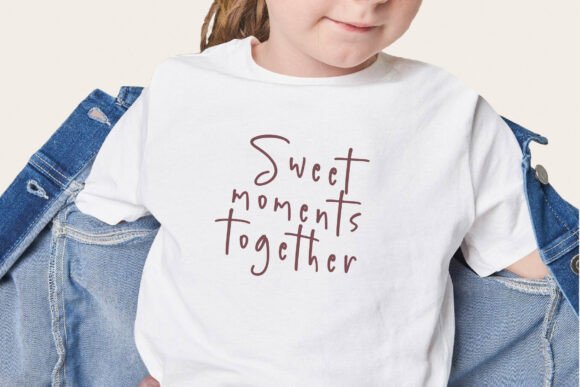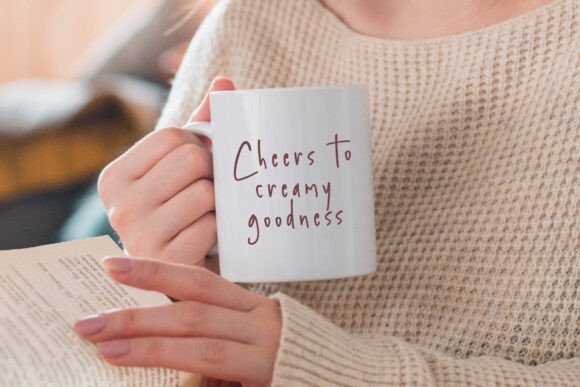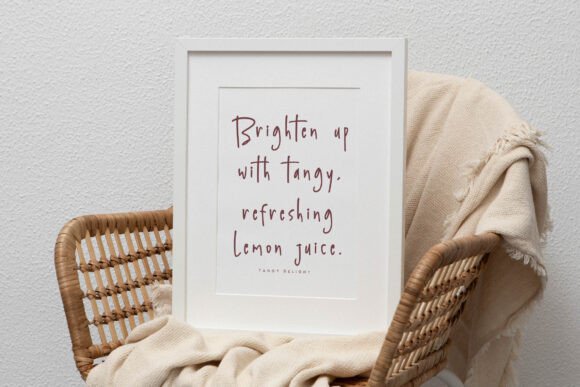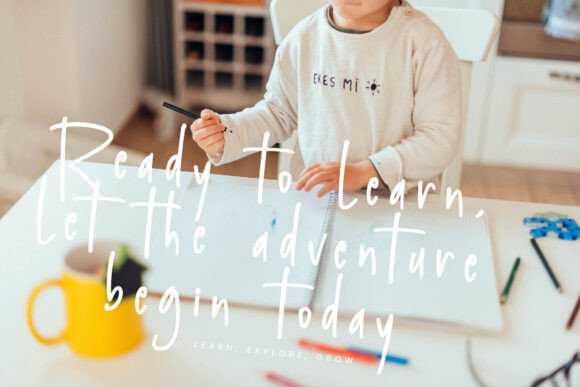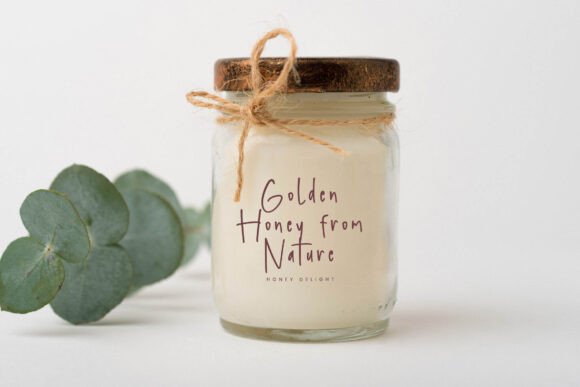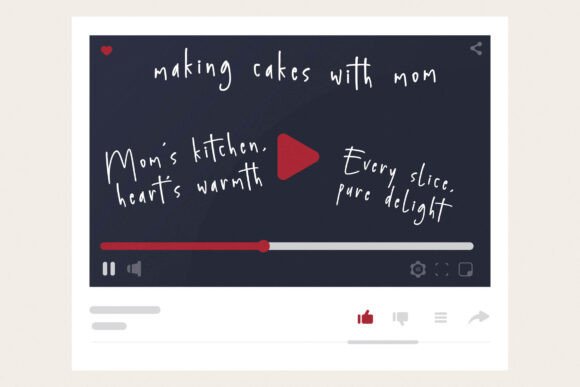
Introduction to Mangostory Crayonkids Font
As designers, we’ve all been there – staring at a blank canvas, searching for the perfect font to bring our creative vision to life. It’s that moment of inspiration when everything falls into place, and the right typography is the key to unlocking our masterpiece. And for those who crave a unique touch, the Mangostory Crayonkids Font is sure to become your new go-to design resource.
Developed by the talented team at Integritype Studio, this natural handwritten font is a game-changer for designers looking to add a premium touch to their projects. With its high-quality design and transparent background, it’s perfect for a wide range of creative projects, from logos and branding to homewares designs and product packaging.
Key Features of Mangostory Crayonkids Font
- Unique Hand-Drawn Design: The Mangostory Crayonkids Font boasts a distinctive hand-drawn style, making it perfect for creative projects that require a personal touch.
- High-Quality Design Resource: This font is a high-quality design resource, ideal for designers and artists seeking a versatile and eye-catching typeface.
- Transparent Background: The font’s transparent background allows for seamless integration with various design elements, making it a valuable asset for designers working on complex projects.
- Resolution-Independent: With a resolution-independent design, the Mangostory Crayonkids Font can be used for both print and digital projects, making it a valuable addition to any design resource library.
- Perfect for Children’s Content: The font’s playful and whimsical design makes it perfect for children’s content, educational materials, and other creative projects that require a youthful and engaging tone.
Honest Review: Mangostory Crayonkids Font
I recently had the chance to dive into the Mangostory Crayonkids Font, and I must say it’s a unique addition to any design resource. Its whimsical feel is perfect for a creative project that needs a touch of playfulness.
- ✨ The font’s transparent background makes it incredibly versatile for use on various backgrounds.
- ✨ The high quality of the font ensures that it looks crisp and clear, even at larger font sizes.
- ⚠️ The font may not be suitable for formal or professional projects, as its playful feel may not be fitting for such a tone.
- ⚠️ The font’s bold weights may be difficult to read at smaller font sizes.
Overall, I’m impressed with the Mangostory Crayonkids Font. It’s a fun and creative addition to any design project, and its free download makes it an excellent resource for designers looking to add some personality to their work.
The Mangostory Crayonkids Font is perfect for creating playful and whimsical designs, such as children’s book illustrations, party invitations, and educational materials. Its unique style and high-quality design make it an ideal choice for creative projects that require a touch of fun and imagination.